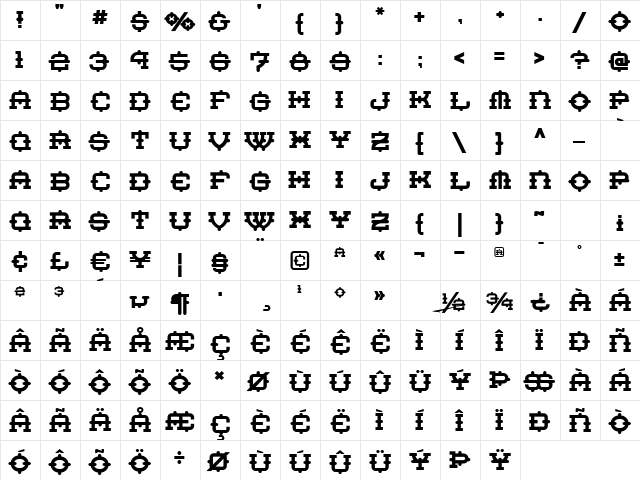
Robot Monster NF Regular
Design Context for Robot Monster NF Typeface
Robot Monster NF is a composed and adaptable typeface that performs quietly and consistently across a wide range of design contexts.
Pro Tip: Use Robot Monster NF in both headline and body roles to test its range before committing to a single application.